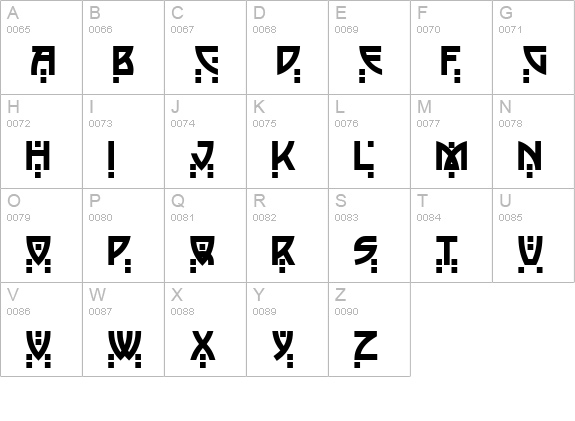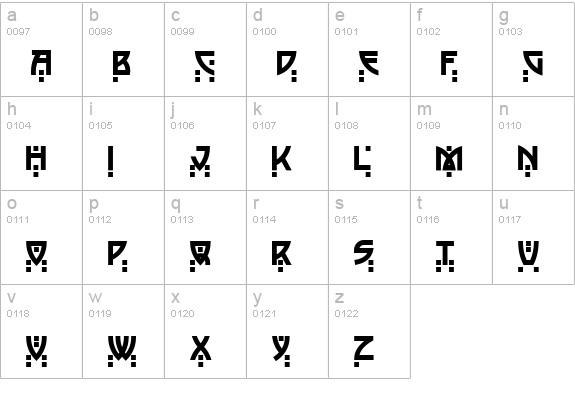
Postmodern Two Font Details
Postmodern Two font is a unique and stylish typeface that embodies the essence of postmodern design. With its eclectic mix of geometric shapes and playful details, this font is sure to make a statement in any project. The clean lines and contemporary feel of Postmodern Two font make it perfect for branding, posters, and editorial design. What sets Postmodern Two font apart is its versatility and ability to adapt to different design styles. Whether you're going for a minimalist look or a bold and vibrant aesthetic, this font has you covered. Its modern yet timeless appeal will elevate your projects and give them a fresh and innovative touch. And the best part? Postmodern Two font is completely free to download at FontsMarket.com. So why wait? Give your designs a modern twist with this eye-catching and dynamic font today!